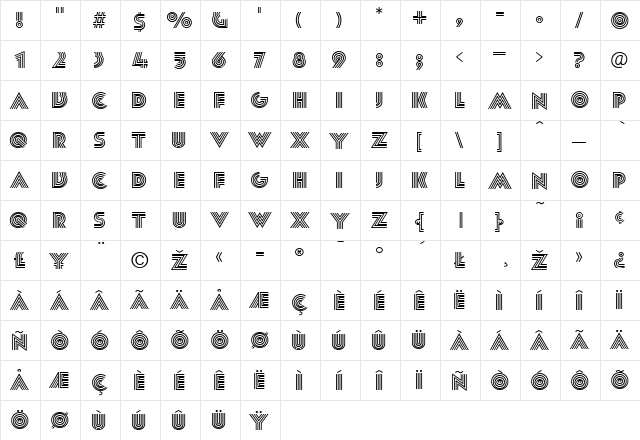
NeoPrisma Regular
| Foundry | Digitized by Dan X. Solo. Software \ by Dover Publications, Inc |
Design Context for NeoPrisma Typeface
NeoPrisma is a composed and adaptable typeface that performs quietly and consistently across a wide range of design contexts.